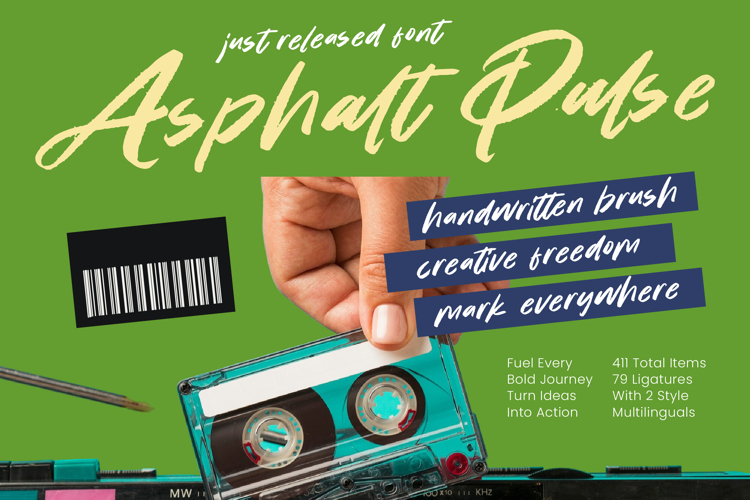
Asphalt Pulse - Handwritten Brush
Experience the raw energy of urban expression with the strikingly authentic Asphalt Pulse - Handwritten Brush. This high-impact typeface captures the organic texture of real brush strokes, delivering an edgy aesthetic that resonates with modern audiences. Designed for creative freedom, it provides a dynamic rhythm to your typography, ensuring that every word feels personalized, handmade, and full of life.
Elevate your creative projects with professional-grade assets that offer unparalleled flexibility and depth. With its extensive multilingual support, Asphalt Pulse - Handwritten Brush adapts seamlessly across global markets, making it incredibly versatile for international projects. Featuring over 411 total items and 79 unique ligatures across two distinct styles, this handwritten font allows designers to craft bespoke headlines and expressive layouts that stand out in any crowded marketplace.